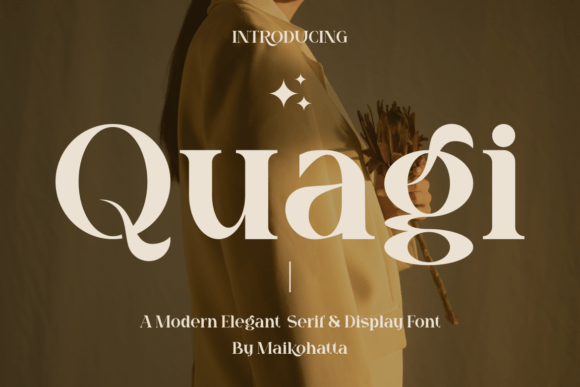
Introducing the extraordinary Quagi Font – Beauty Serif Font – Modern Font, a captivating serif font that oozes boldness and authenticity. Immerse yourself in the artistic world of tattoos with our intricately designed font, ready to transform your creative vision into a striking reality.
Embrace the allure of Quagi and unleash your inner artist. Whether you're a seasoned designer or just starting your creative journey, Quagi is your perfect companion. Effortlessly create logos that command attention, design templates that inspire, and embark on captivating esport designs that leave a lasting impression.
Quagi's versatility knows no bounds. Its carefully crafted glyphs dance harmoniously, adapting seamlessly to diverse contexts. From rustic wedding invitations to edgy street art posters, Quagi effortlessly elevates the visual appeal of any project.
Be it branding, advertising, or personal expression, Quagi is your trusted ally. Make a statement with your social media posts, captivate audiences with eye-catching presentations, or add a touch of exclusivity to your personal stationery. Let Quagi elevate your creativity and make your designs shine.
Experience the beauty of Quagi today and unlock a world of endless possibilities. Embark on a creative adventure where your imagination takes center stage. Let Quagi be your muse and witness how your designs transform into captivating masterpieces.